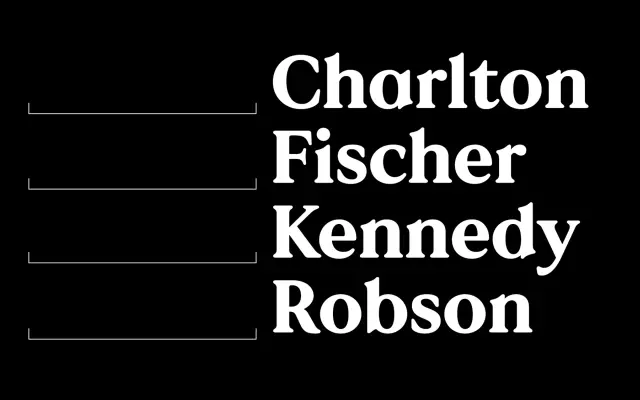
F37 Bobby
A warm, friendly headline serif with a subtle geometric twist, built for display sizes and brand voice.
A headline serif with a quietly geometric construction. Three weights with matching italics give it enough range for a tight identity system, and the Arabic companion extends it into bilingual work. Sits well in lifestyle, fashion and editorial branding where you want a serif that feels approachable rather than classical.
F37 describe Bobby as a warm, friendly headline serif with a subtle geometric twist. Letterforms sit between a traditional serif and a geometric construction, giving display copy a soft personality without leaving the serif family.